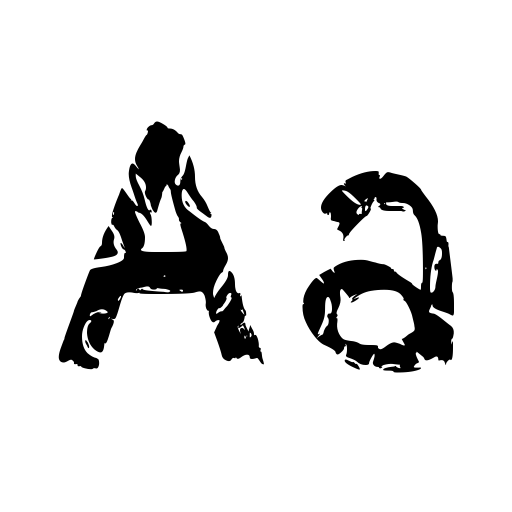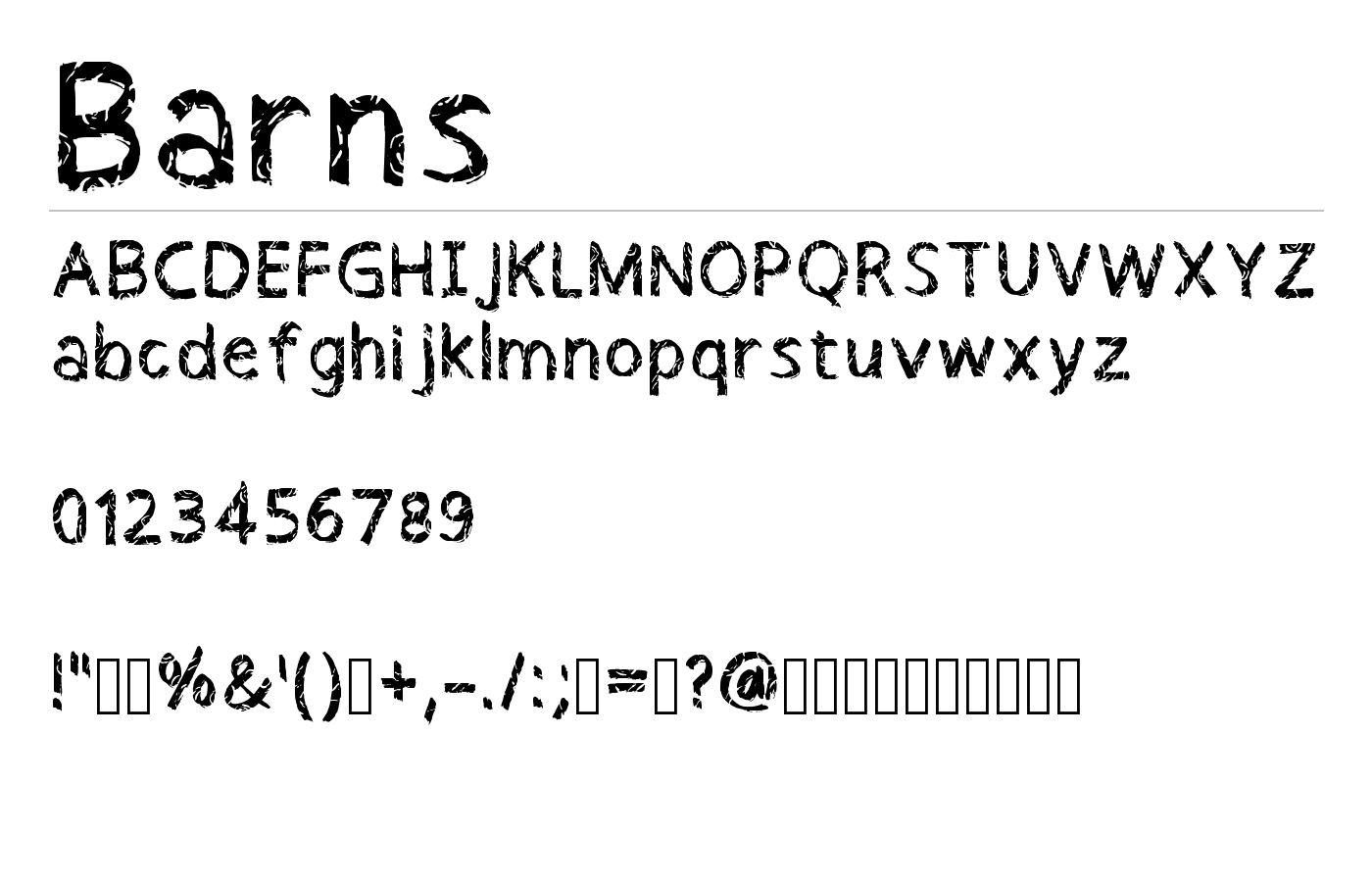
Barns Font is a distressed, textured sans serif typeface with a rough, hand-crafted feel that adds character and authenticity to designs. Its uneven edges and imperfect strokes give it a rustic, vintage charm, making it ideal for projects needing a gritty, handmade look like posters, packaging, or branding that seeks a casual yet bold personality. This font works best in display use where its unique texture can shine and create a strong visual impact.
Barns Font